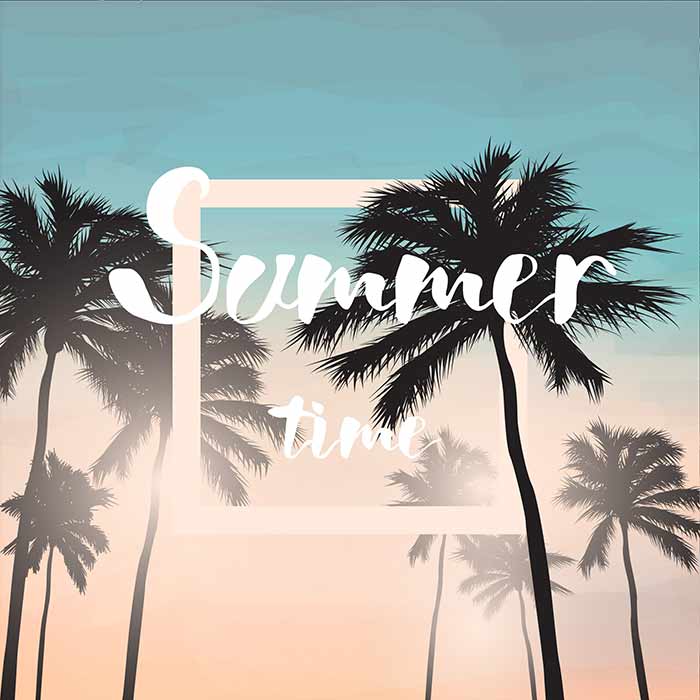
‘Wish‘ free commercial font is the new script. The WISH is a quality designed hand lettering typeface. Carefully made.
Get inspired by nature for nice and engaging designs. This font will meet your requests and will draw your attention as it is natural and simple.